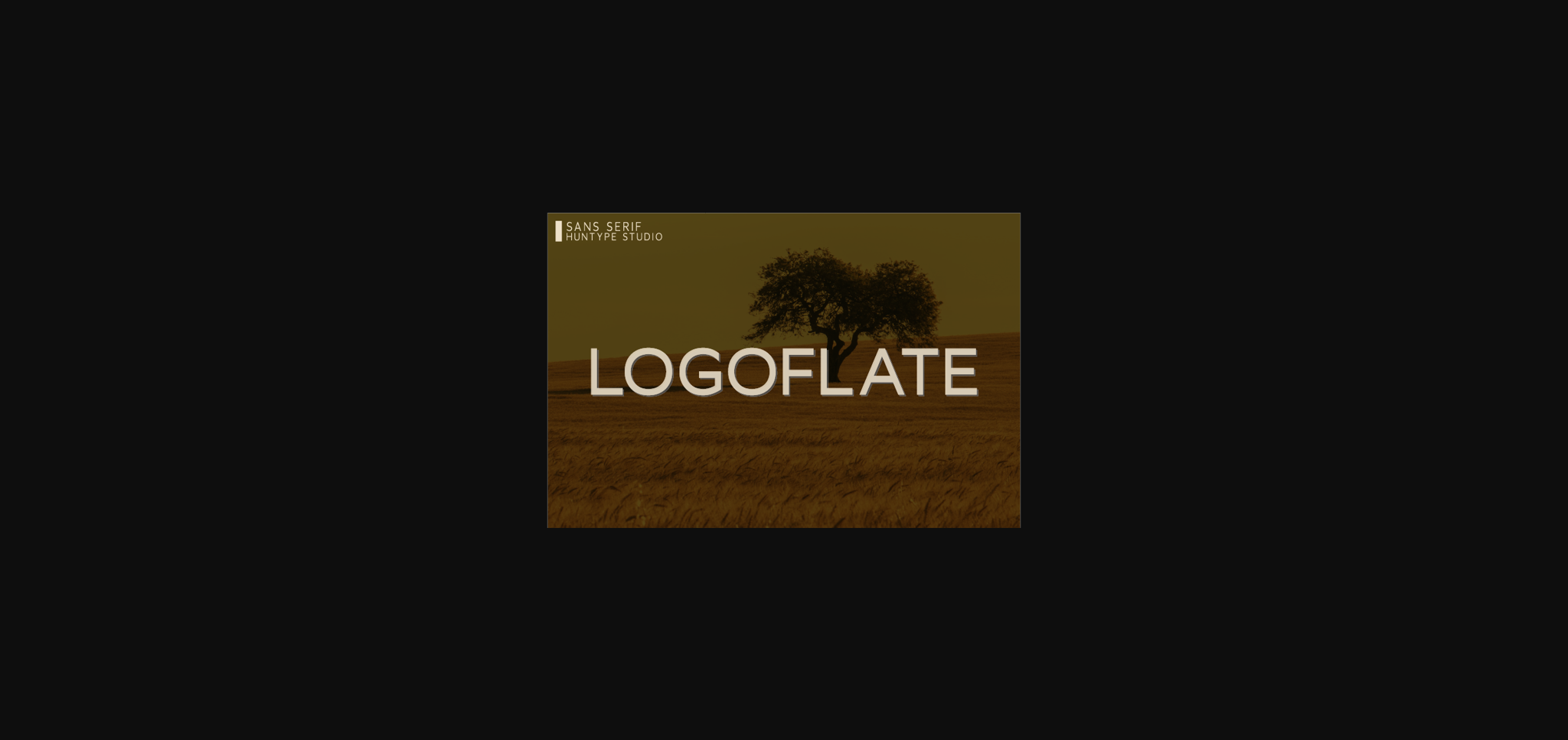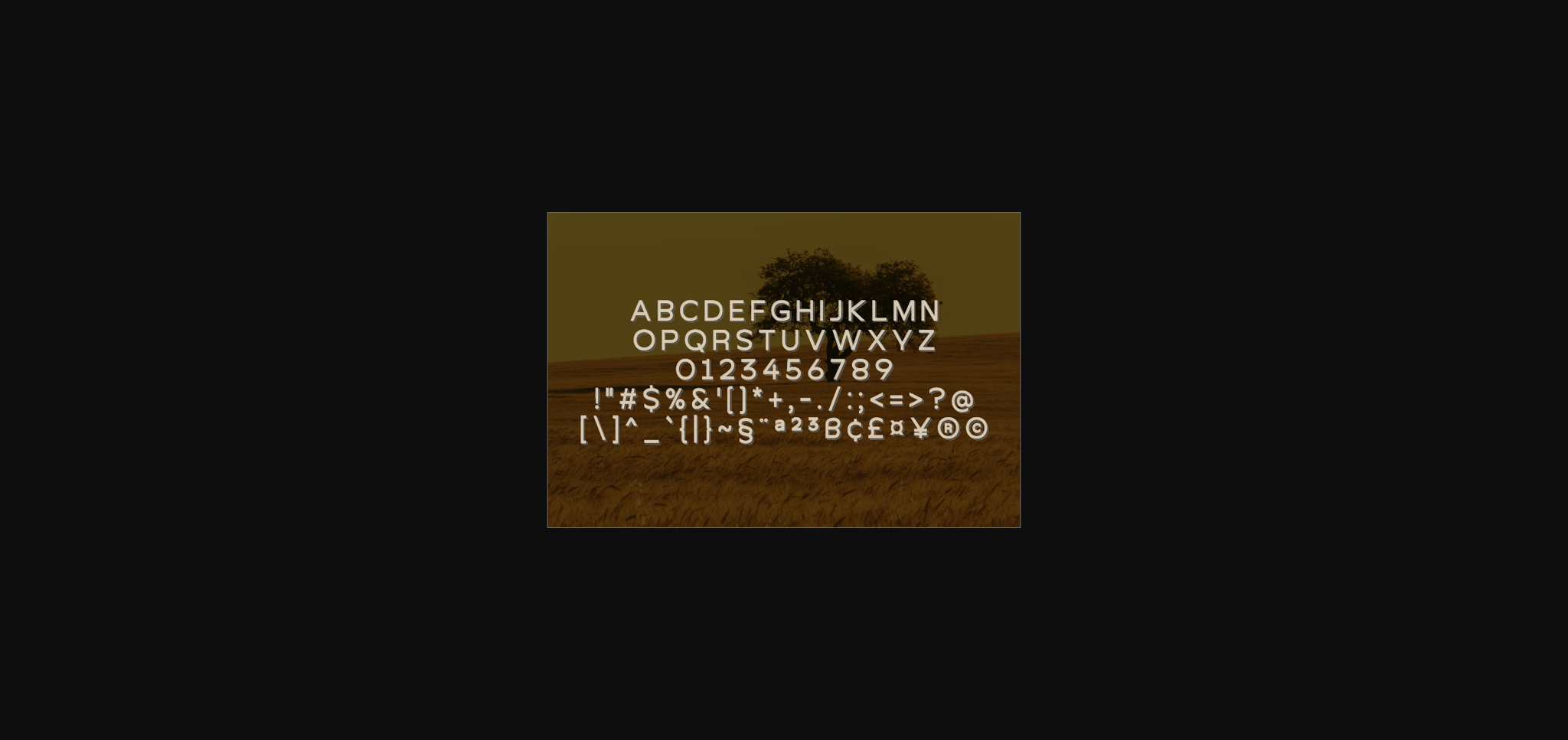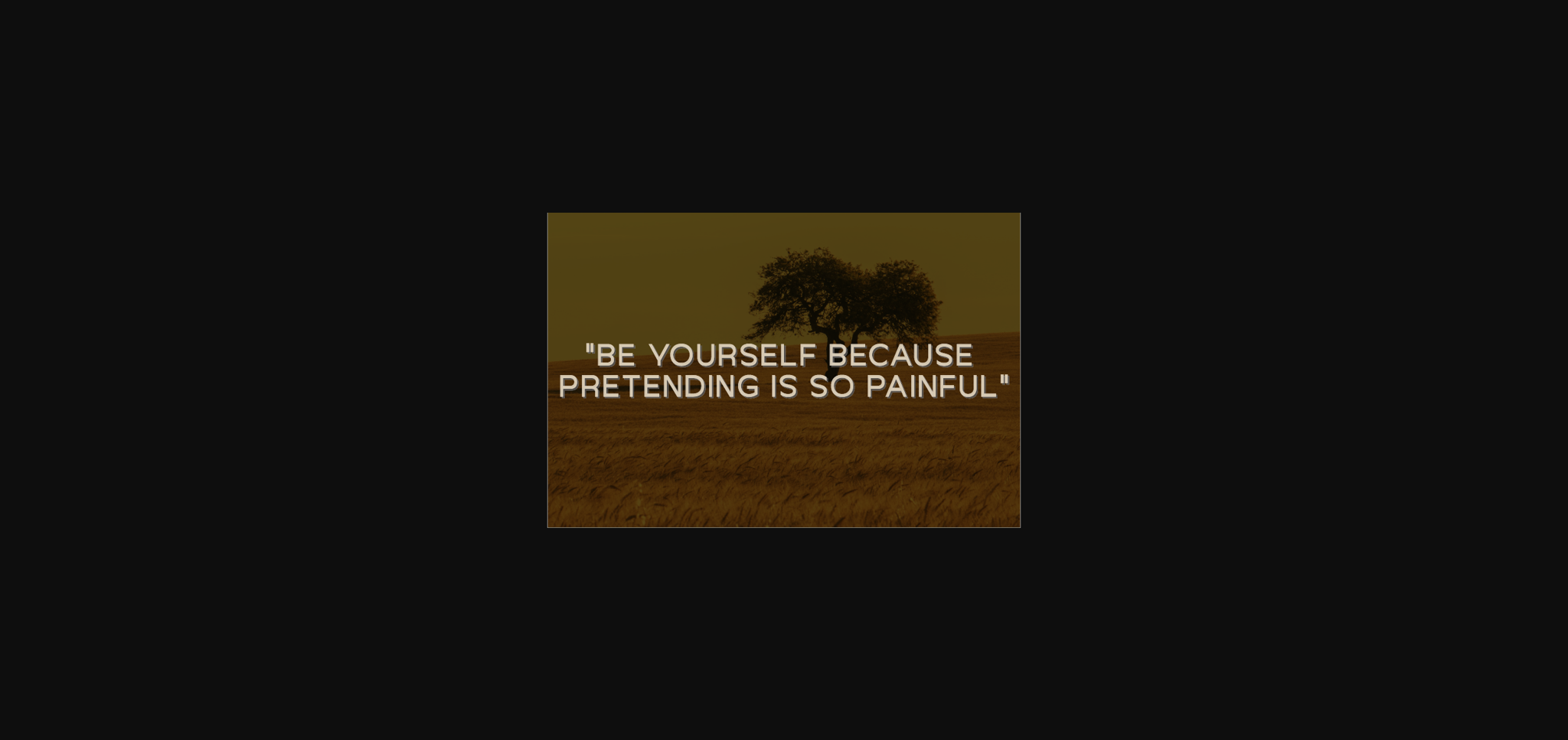
Logoflate is a neat and authentic sans serif font. It is suitable for any branding, product packaging, invitation, quote, t-shirt, label, poster, logo that you wish to develop.